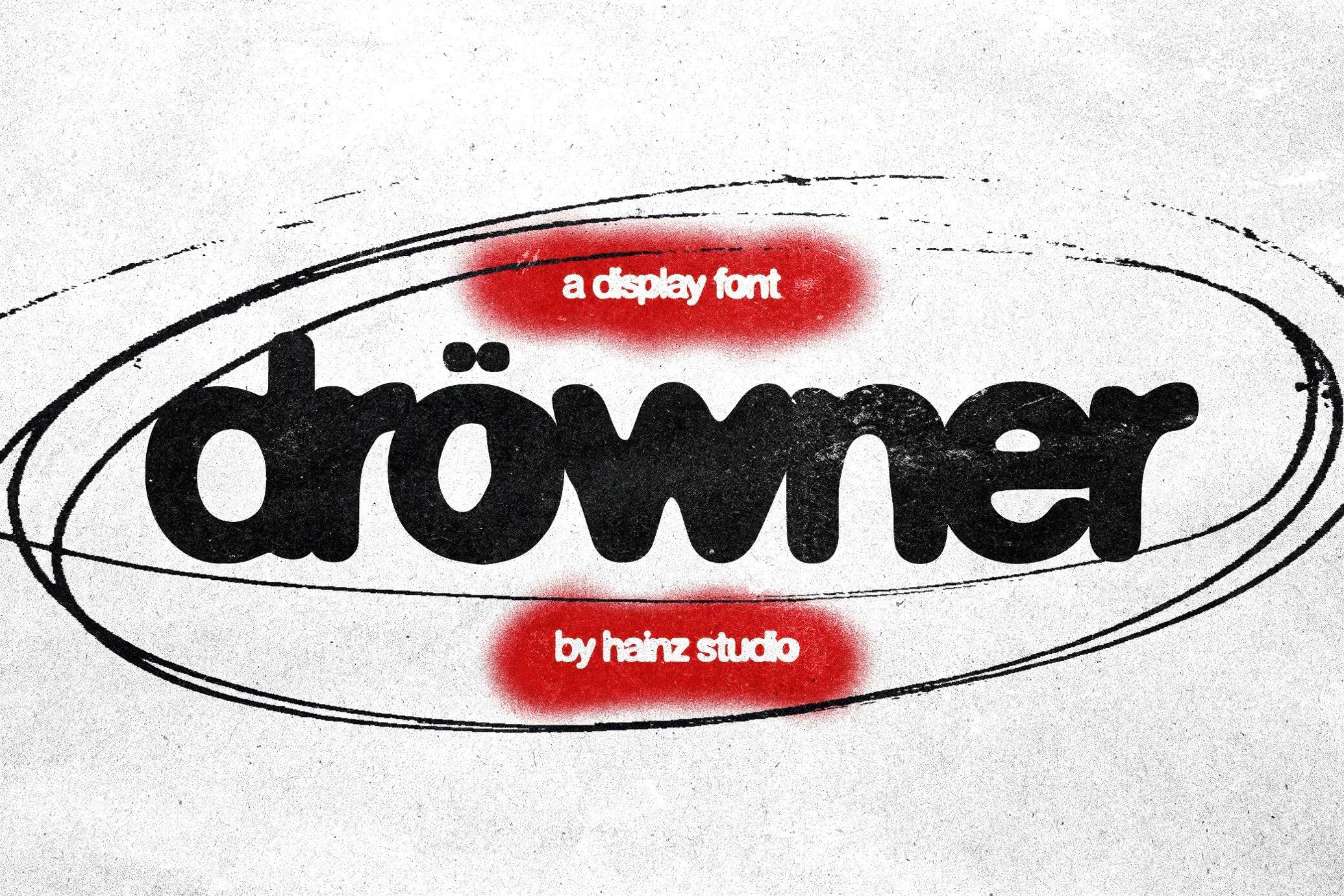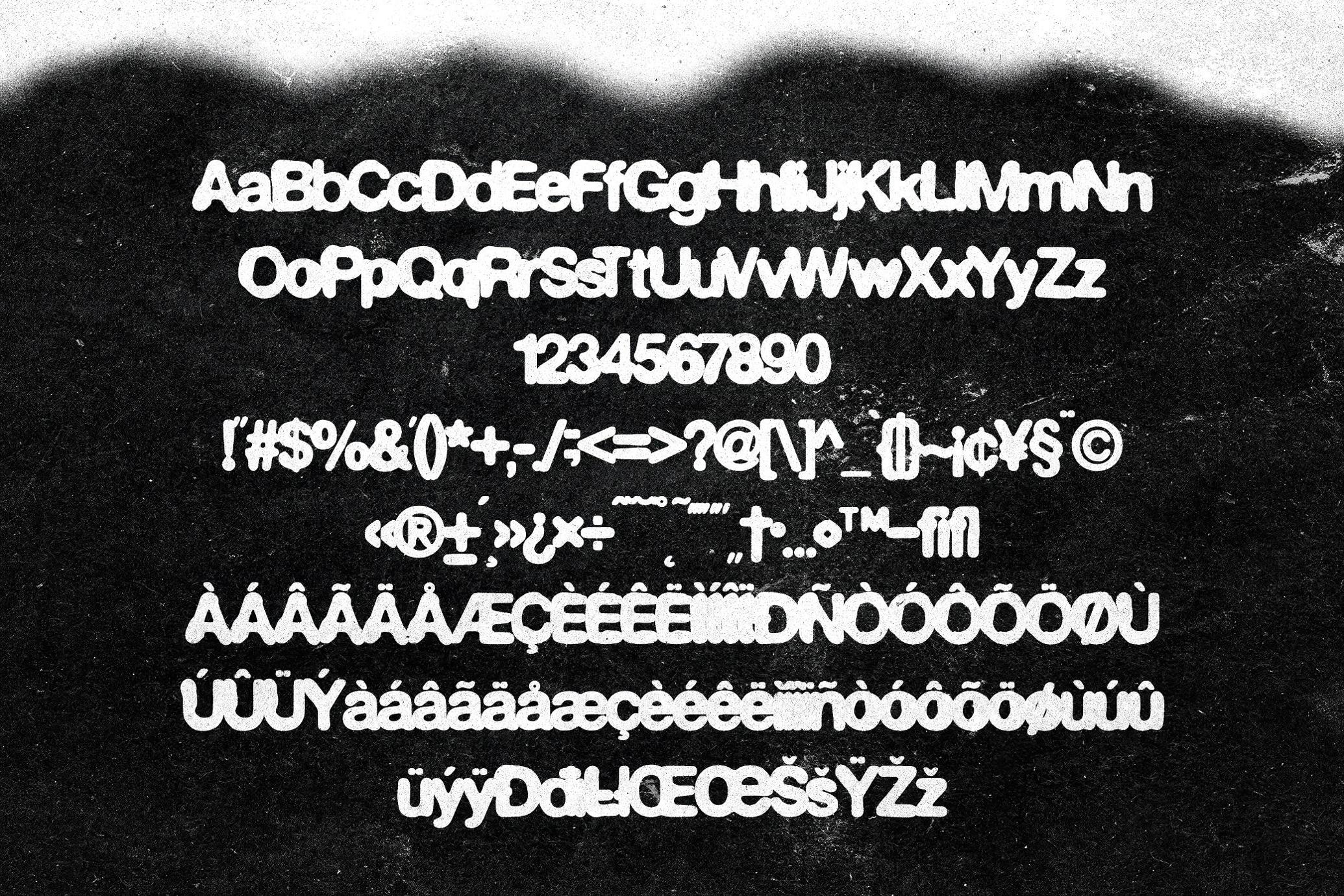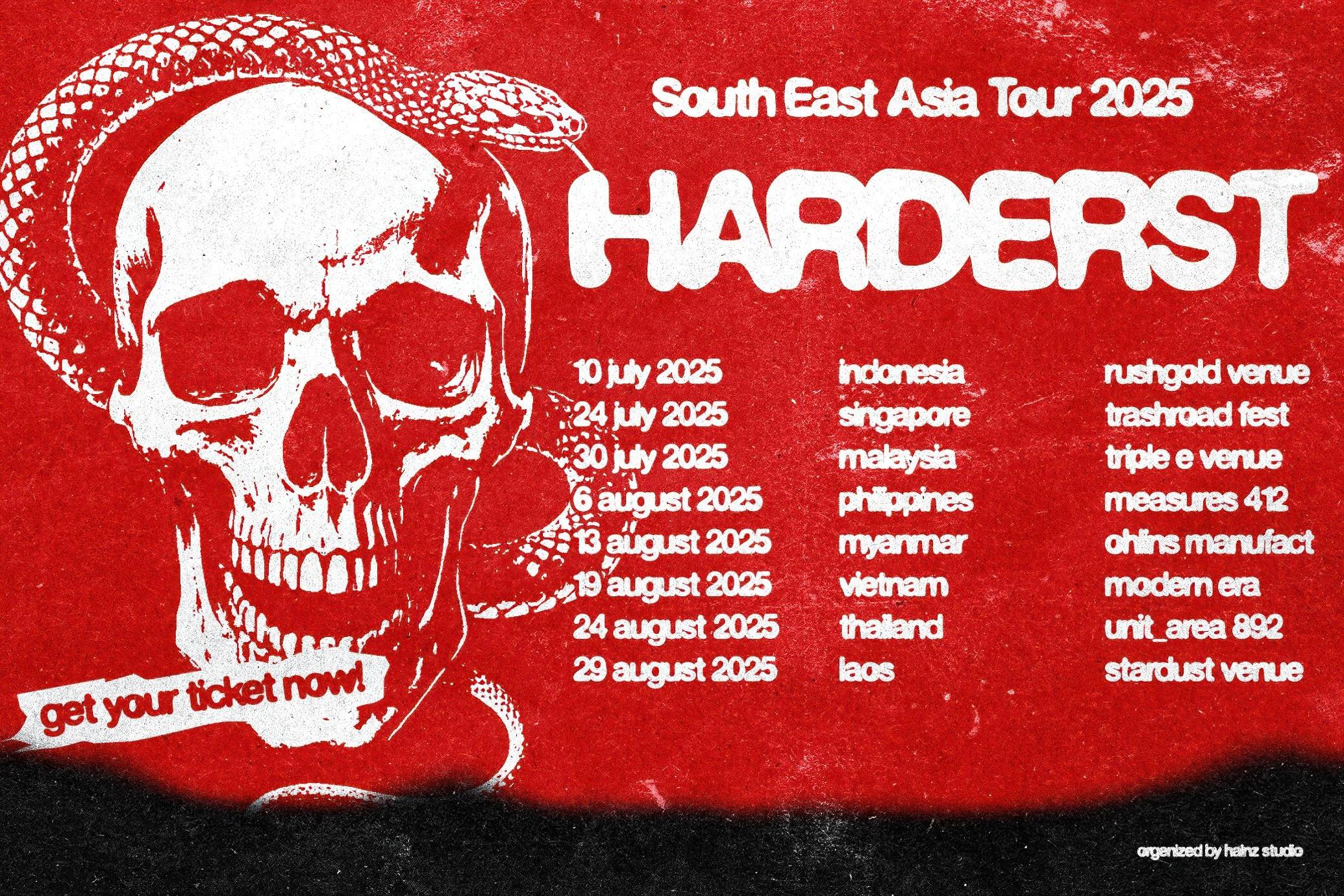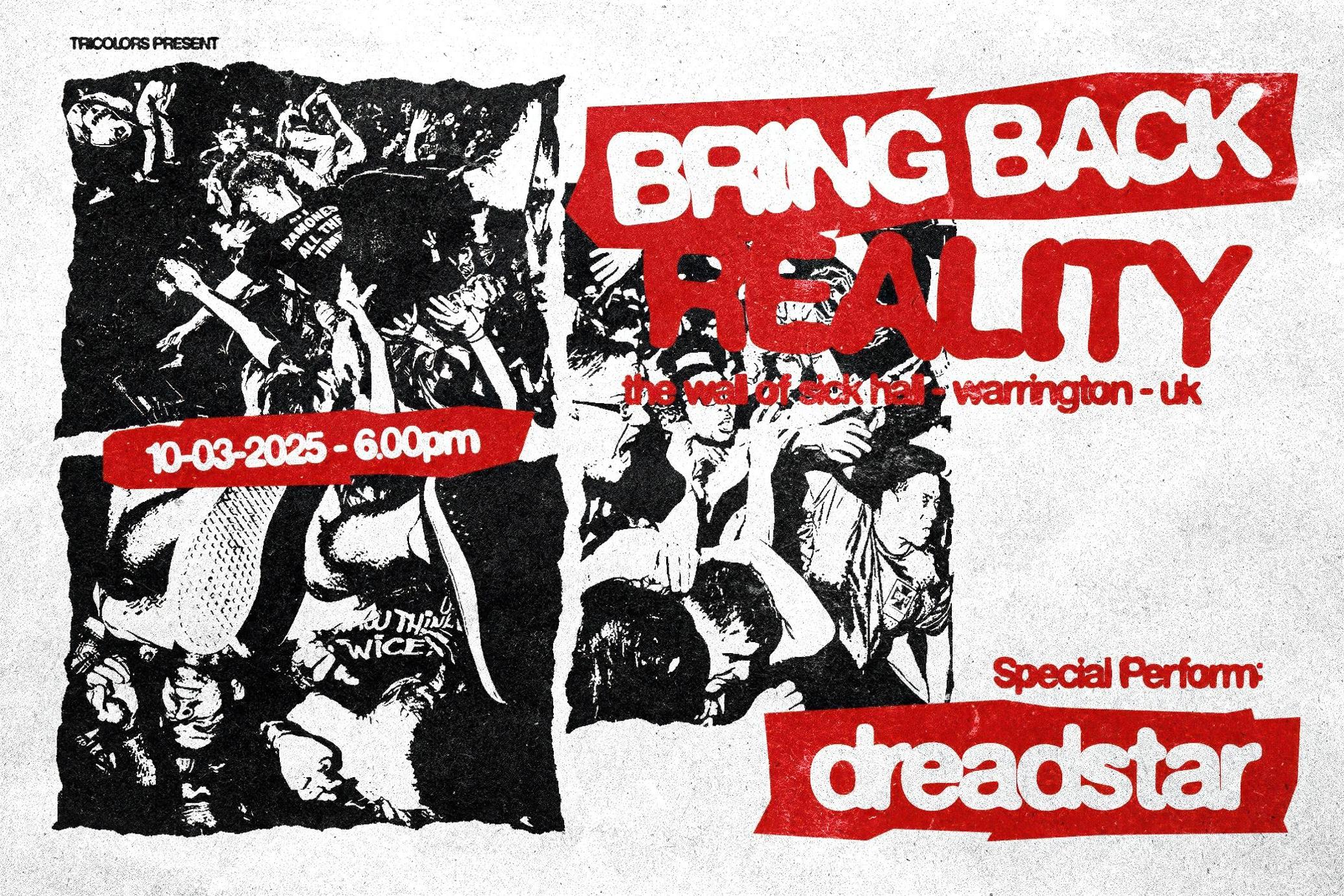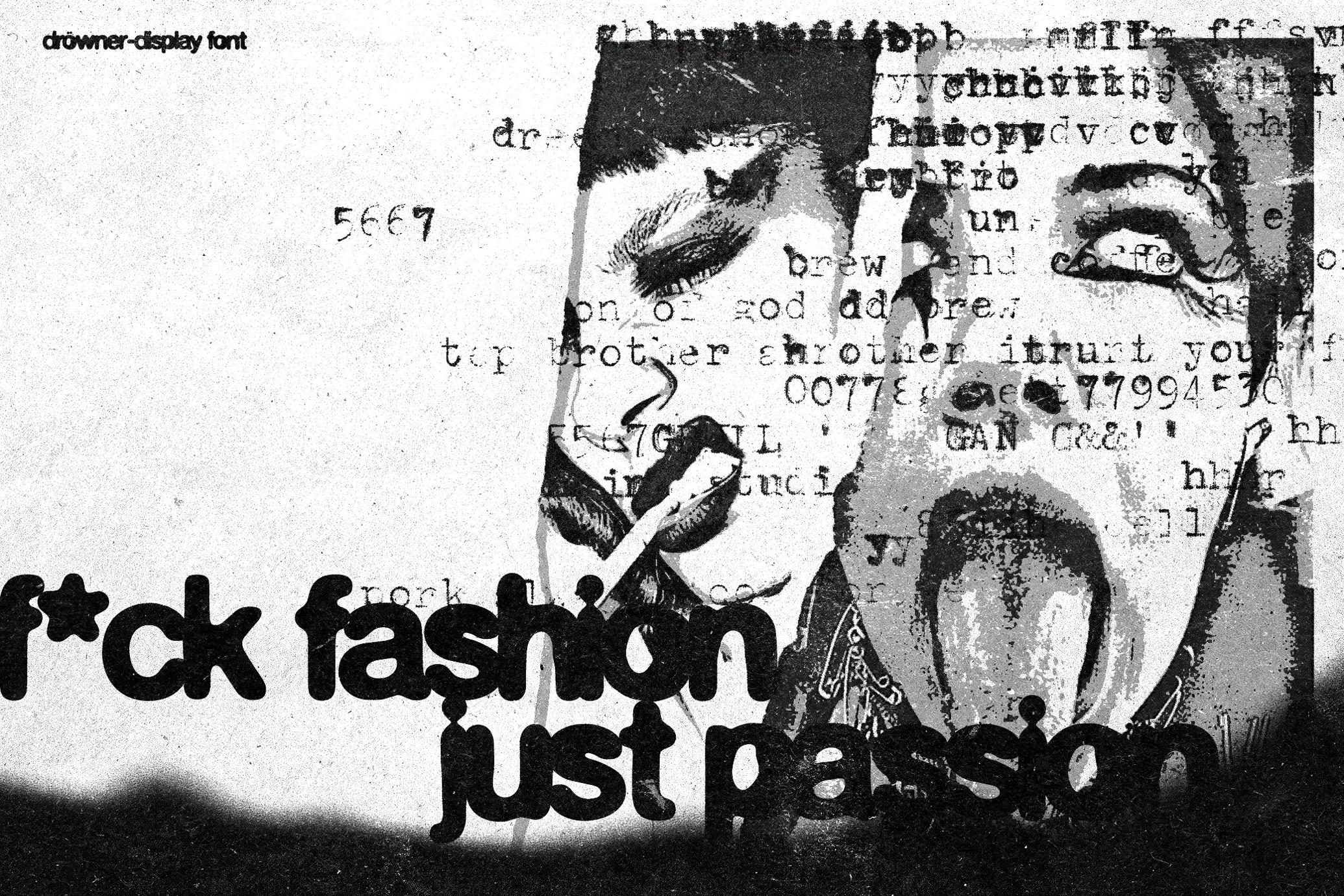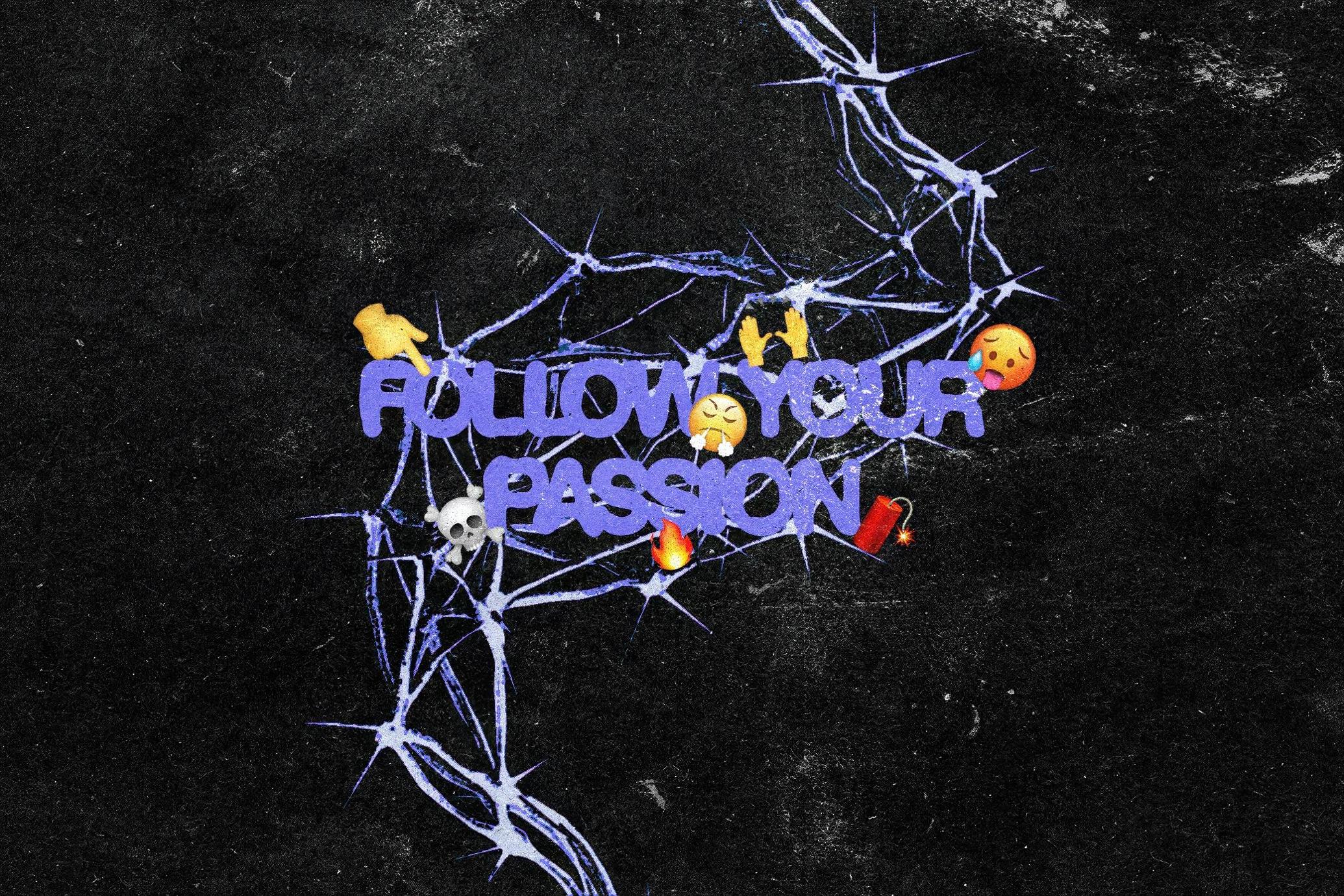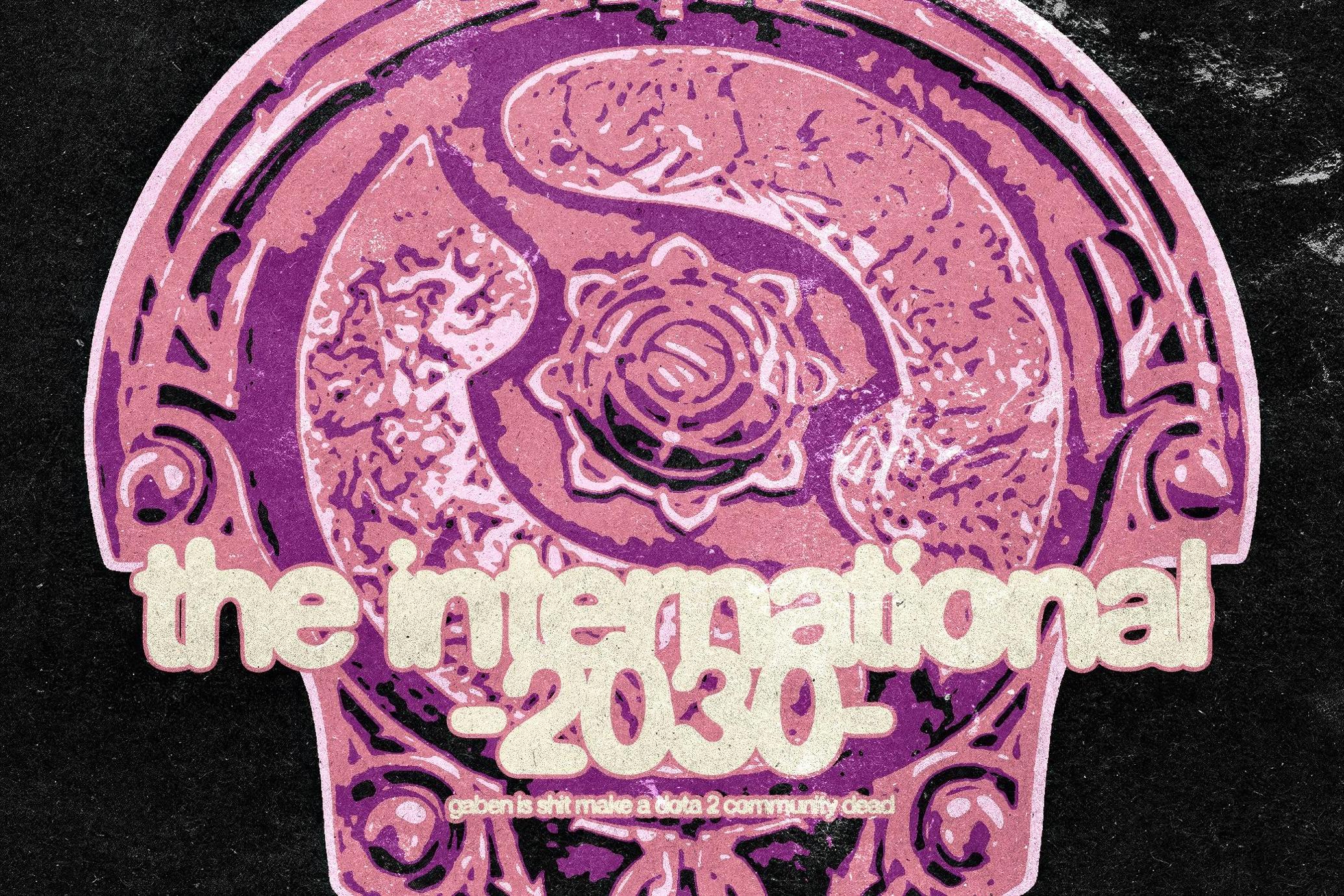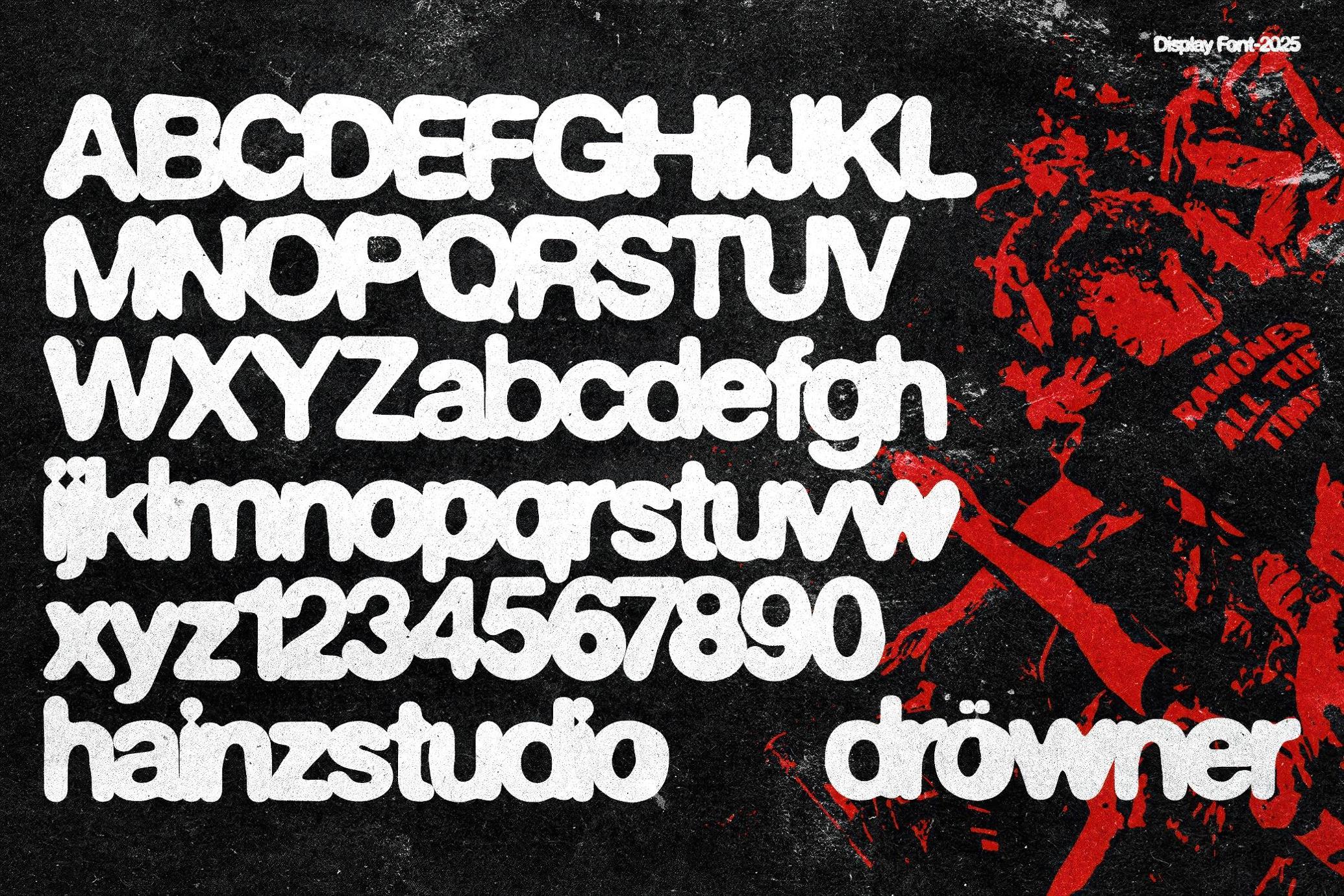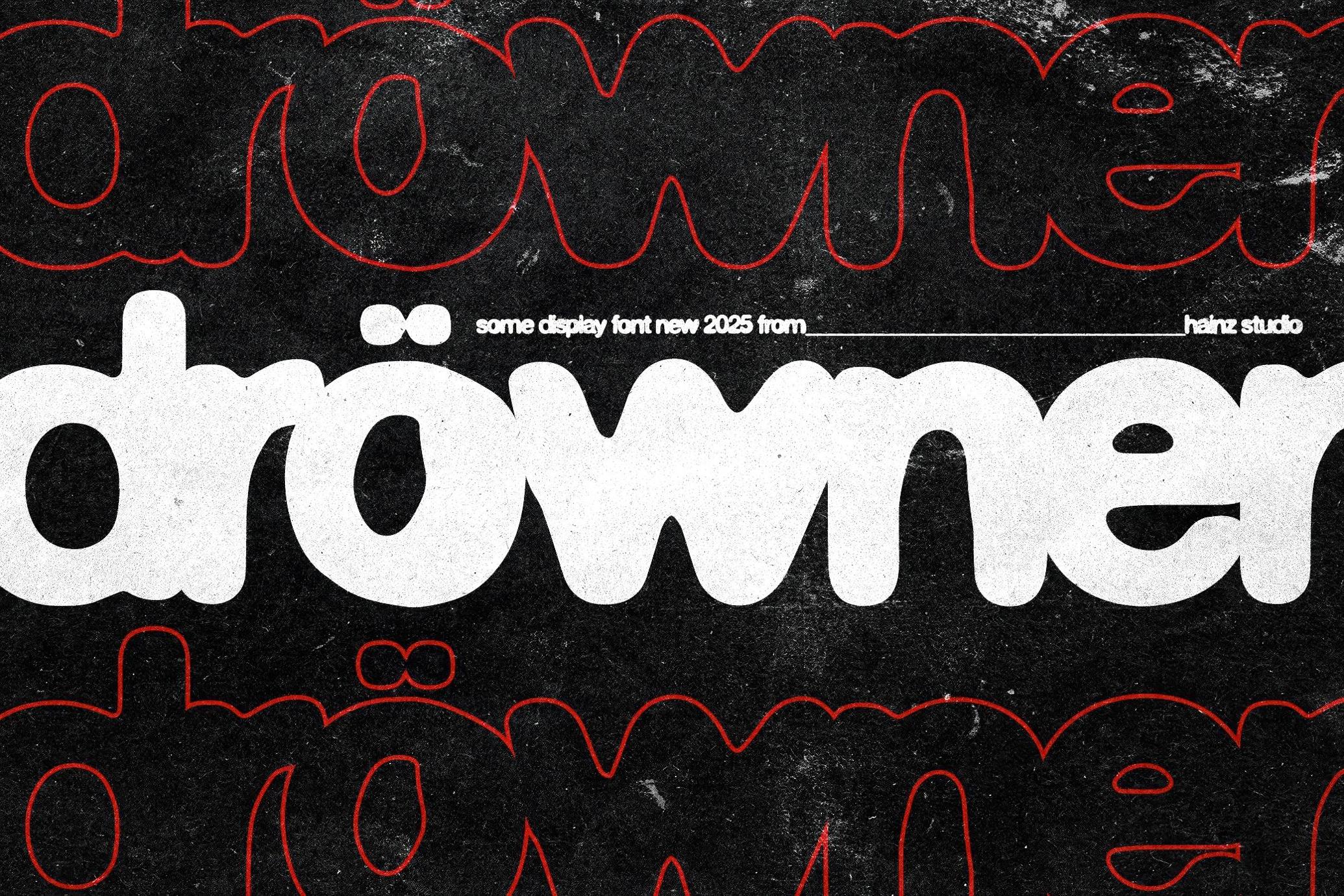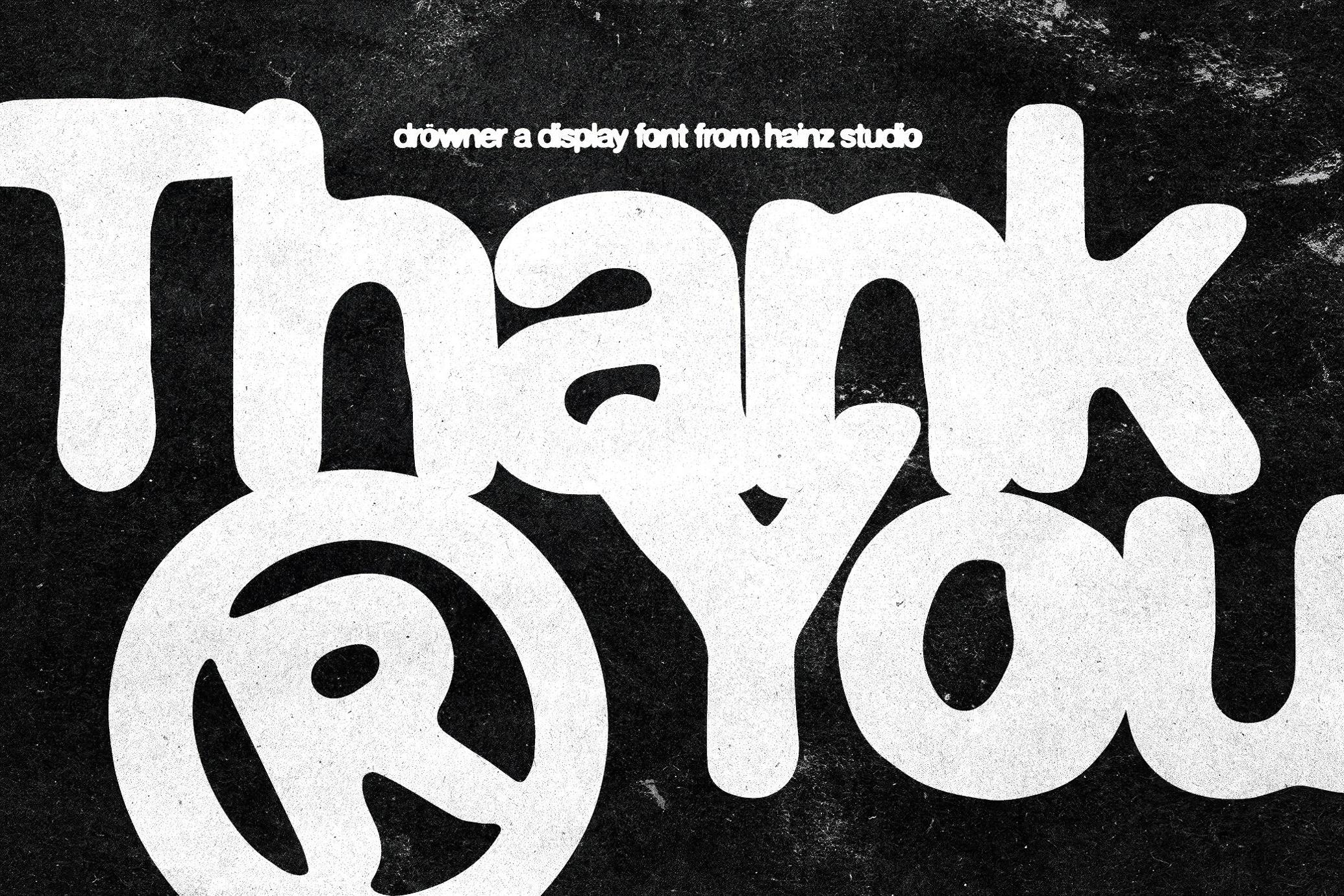
Drowner Display Font
The mood of Drowner sits somewhere between a late-’90s punk zine, a bootleg Nine Inch Nails VHS cover, and the raw texture of early Ray Gun magazine layouts. It channels lo-fi aggression you’d find in photocopied band flyers plastered over bathroom stalls, or the scratched CD art from the Kerrang! compilation. Works great for album art, weird zines, rebellious branding, or anything that shouldn’t look too well-behaved. Comes with upper and lowercase, punctuation, numerals, symbols, and multilingual support — in case your angst needs to speak several languages.